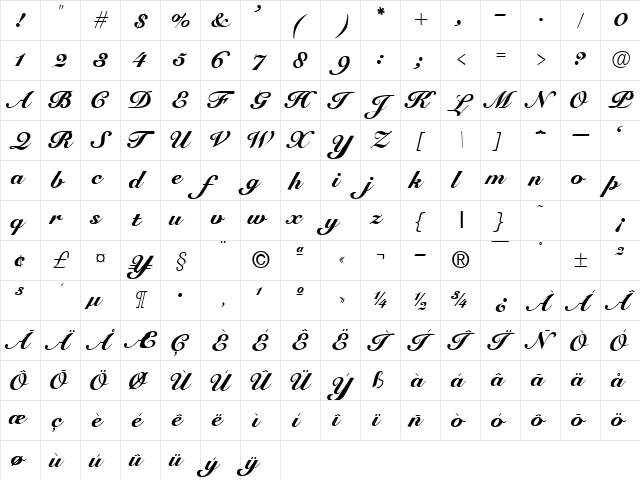
Elegant-Script Normal
Design Context for Elegant-Script Typeface
Elegant-Script flows with the natural rhythm of handwritten lettering, making it ideal for designs that call for warmth and personal expression.
Font Pairing: Combine Elegant-Script with a simple geometric sans for maximum contrast — the tension between flowing curves and clean structure is a classic typographic pairing.
Pro Tip: Pair Elegant-Script with a clean sans-serif for supporting text. The contrast between fluid script and geometric structure creates an elegant typographic hierarchy.